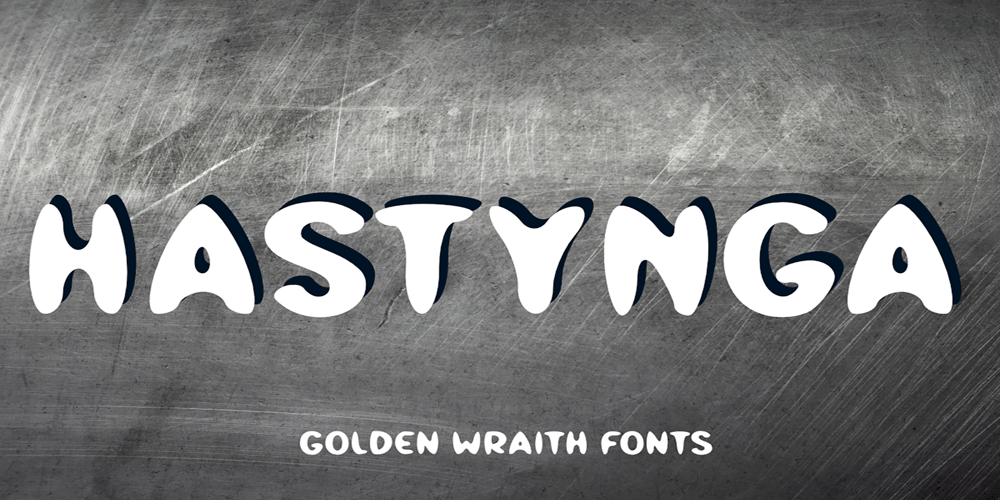
Hastynga
Hastynga font
Hastynga Font Family was designed by zaid jaafar and published by Golden Wraith Fonts. Hastynga contains 1 styles and family package options. Golden Wraith Fonts designed the digital typeface Hastynga It began as an effort to find a solution to the digital aesthetic. By distorting digital fonts into a fluid style of writing with a variation in direction between strokes from one letter to the next, Hastynga allows for simulated text imperfection. Its layout creates textual tension, energetic movement, and vibrant vitality.